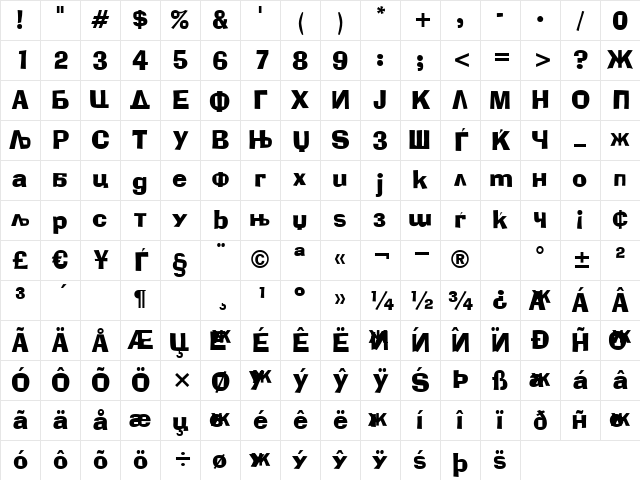
Complete X_Blox Heavy glyph index. Displaying only characters natively supported by X_Blox Heavy font.
X_Blox is a composed and adaptable typeface that performs quietly and consistently across a wide range of design contexts.